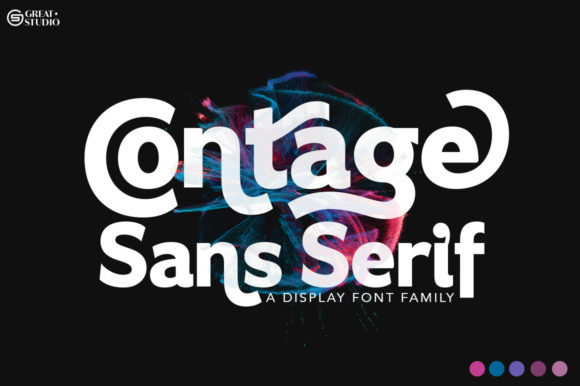
Introducing Contage, the visual symphony of style and functionality. Its clean geometric design dances across the digital canvas, leaving a trail of elegance and clarity. Whether you're a fashionista, a magazine maven, a logo virtuoso, or a branding maestro, Contage is your perfect digital companion. Its meticulously crafted letters, carved with precision for optimal readability, ensure your message shines brighter than a supernova.
Contage's versatility is a kaleidoscope of creative possibilities. From headers and titles that command attention to corporate brochures that exude professionalism, this font family is the ultimate chameleon. Its modern and minimal aesthetic blends seamlessly into any setting, like a chameleon adapting to its surroundings. With Contage, you'll never be confined to a single style; instead, you'll have a font family that morphs to meet your every creative whim.
Step into the realm of visual artistry, where Contage elevates your designs to breathtaking new heights. Its clean lines and geometric precision evoke a sense of order and sophistication, while its contemporary flair captures the vibrant spirit of the modern age. Whether you're creating a web shop that exudes elegance or a fashion portfolio that demands attention, Contage is your secret weapon, the magic wand that transforms the ordinary into the extraordinary.
With Contage, you're not just buying a font; you're embarking on a creative journey, a voyage to the frontiers of visual expression. Embrace the power of Contage and watch as your designs blossom into masterpieces, captivating audiences and leaving an indelible mark on the hearts and minds of all who behold them.